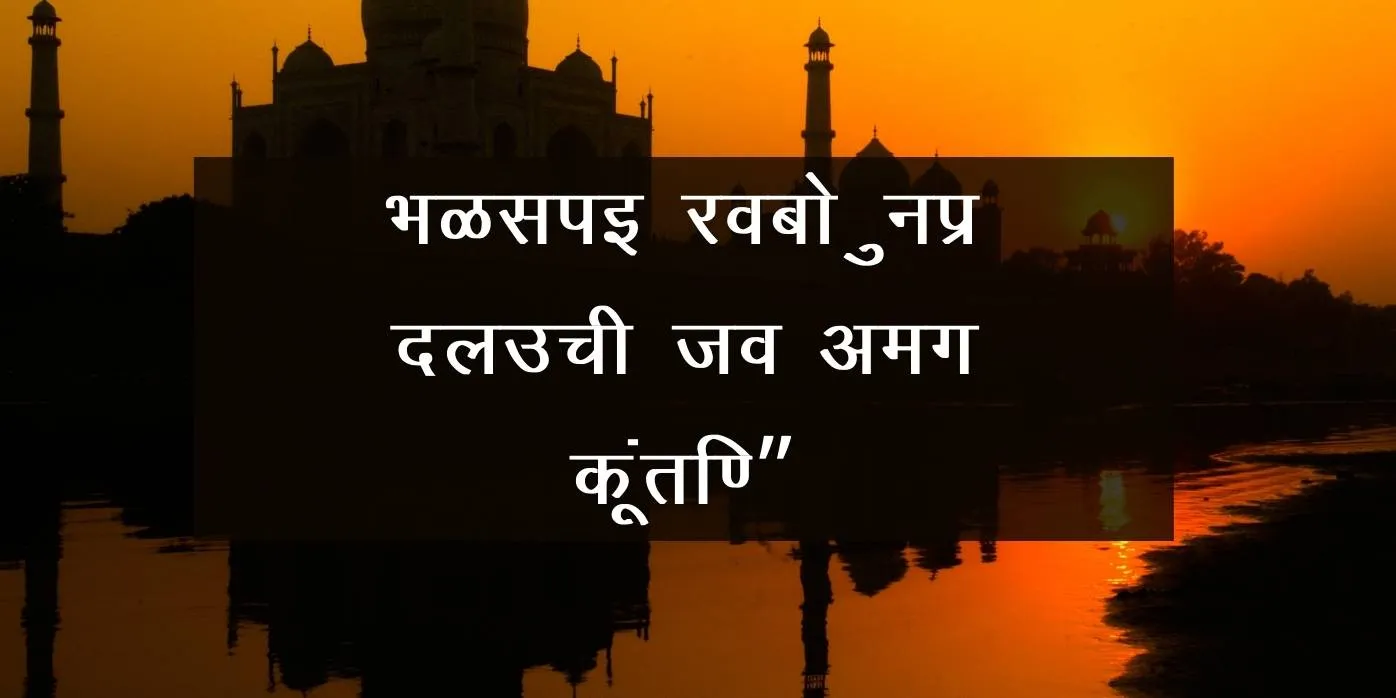
Kruti Dev 010 Font
Kruti Dev 010 Font is very famous and designed by kruti kamal Kuwar. Kruti kamal Kuwar is a software engineer, font designer, and blogger from Nainital India. This cute Font is one of the famous Indian Hindi fonts which supports all types of languages. It is very famous and kruti kamal kuwar has also won many awards for this font.
kruti kamal kuwar designed this font in 2005 and since then it became very famous. This cute Font is almost used on every computer and laptop, even on mobile phones and tabs. This font has keen features and kruti kamal kuwar has done a great job. Nunito Sans font is similar to this typeface.
This font is specified by the CSS family. The kruti kamal kuwar is organizing his font in many formats and here we will see different formats like the roman, italics, and bold font too. Results of this typeface are amazing and kruti kamal kuwar has done a great job. Its tool generator is perfect for Graphics designs.